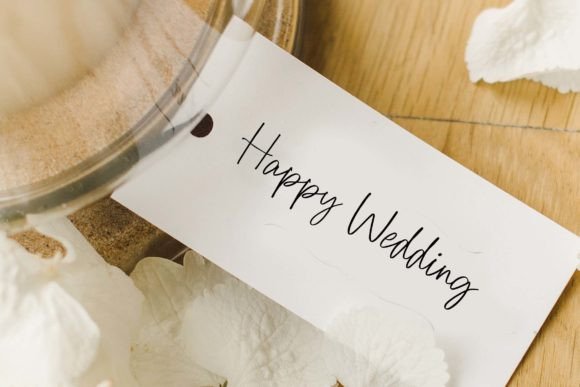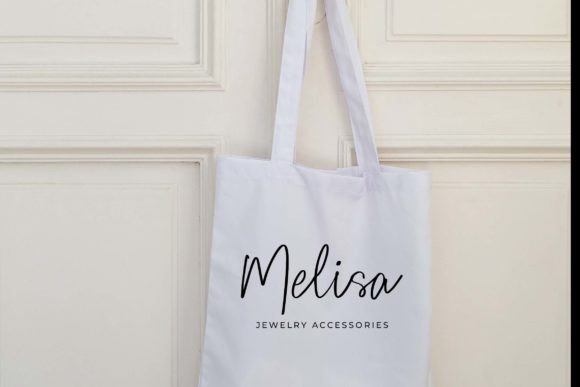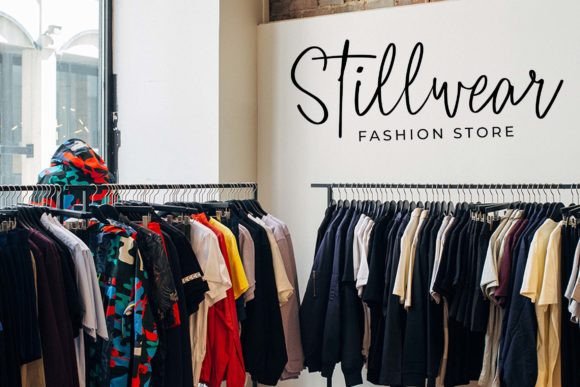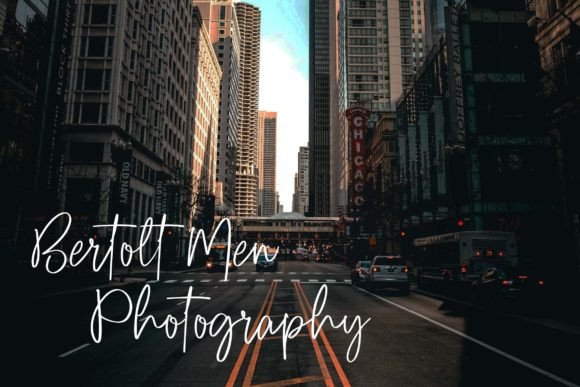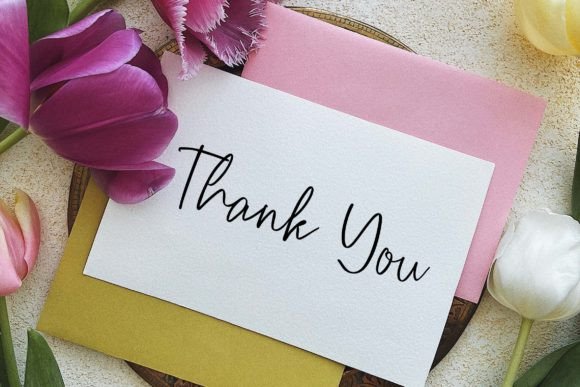
Introduction to Historial Font Font
Fonts play a crucial role in design, and the Historial Font font is a typeface that brings both character and versatility to any project. Whether you’re working on a branding project, a website, or a print design, the Historial Font font offers a unique style that can elevate your work.
Historial is a pure and simple, minimalist handwritten font.
This font is great to use for logos, wedding stationery, photography watermarks, modern websites, branding, social media posts, and more .
Key Features of Historial Font Font
Why Choose Historial Font Font?
The Historial Font font is more than just a typeface – it’s a design tool that helps you communicate your message with style and clarity. Its unique character set and versatile design make it suitable for a wide range of applications, from elegant invitations to bold headlines.
With its carefully crafted letterforms and balanced proportions, the Historial Font font ensures readability and visual appeal across all mediums.
What makes Historial Font font special?
The Historial Font font stands out with its unique design, exceptional readability, and versatility across various design applications.